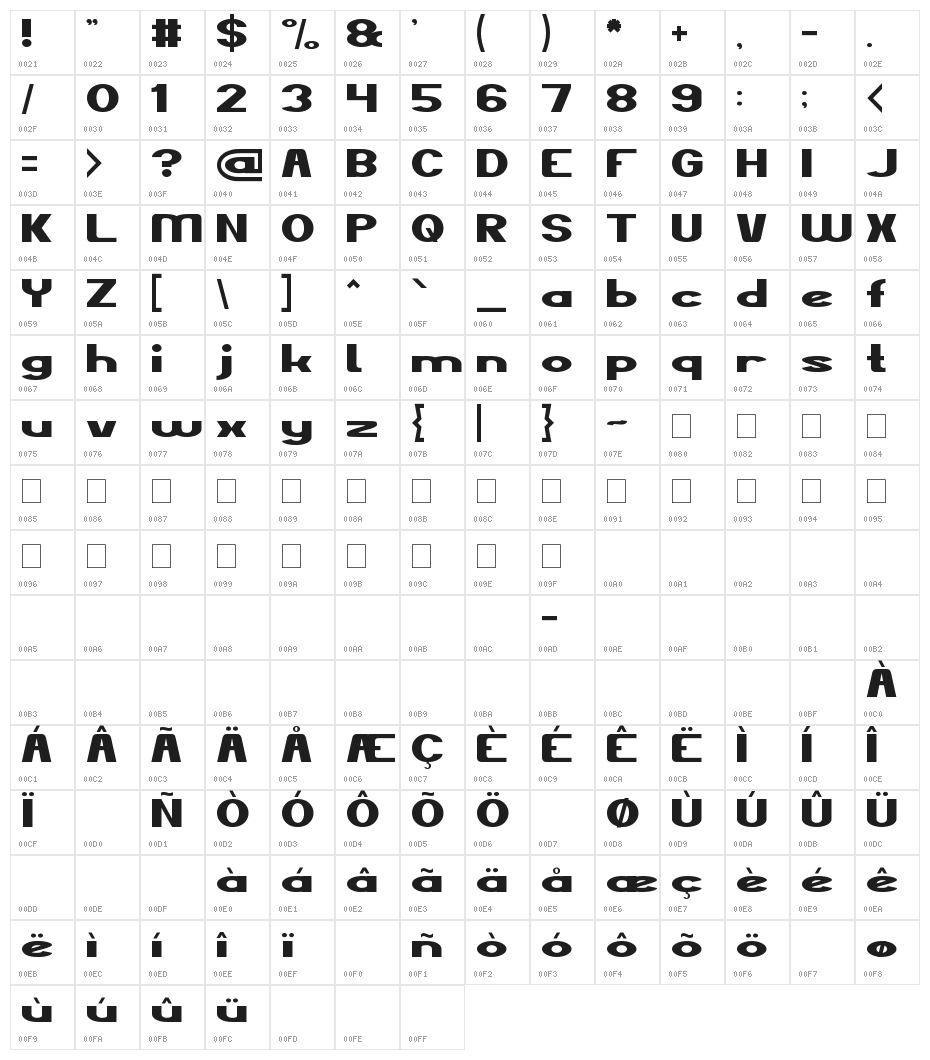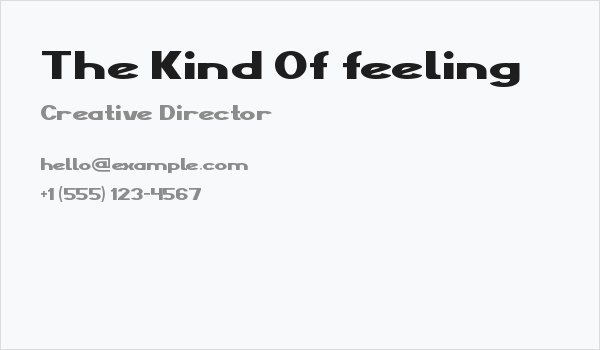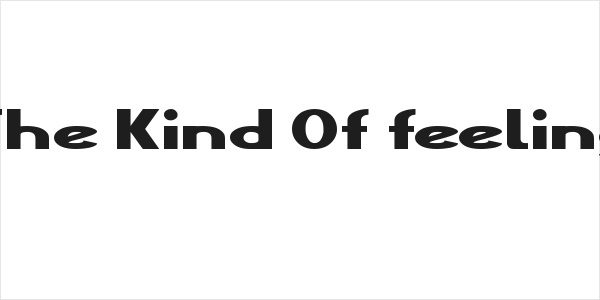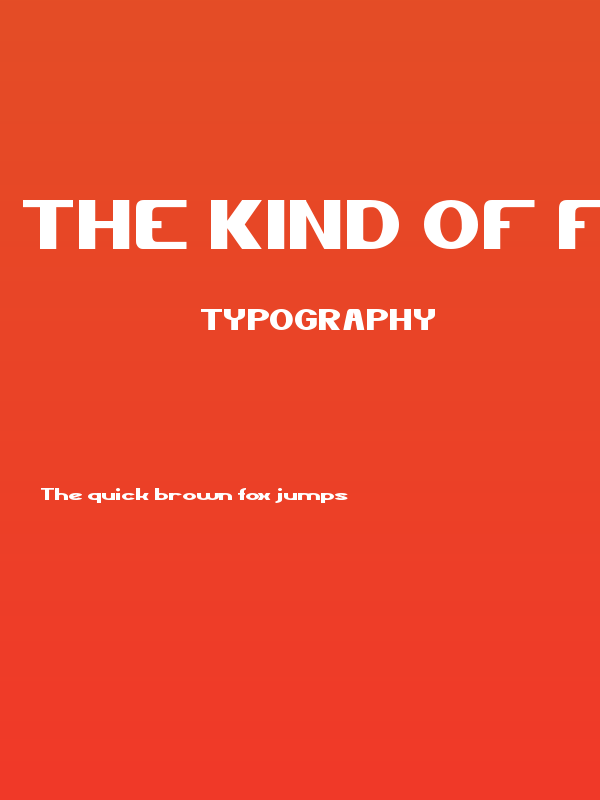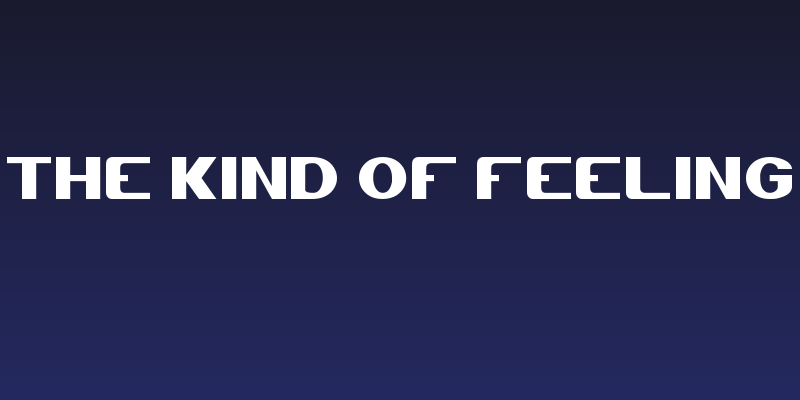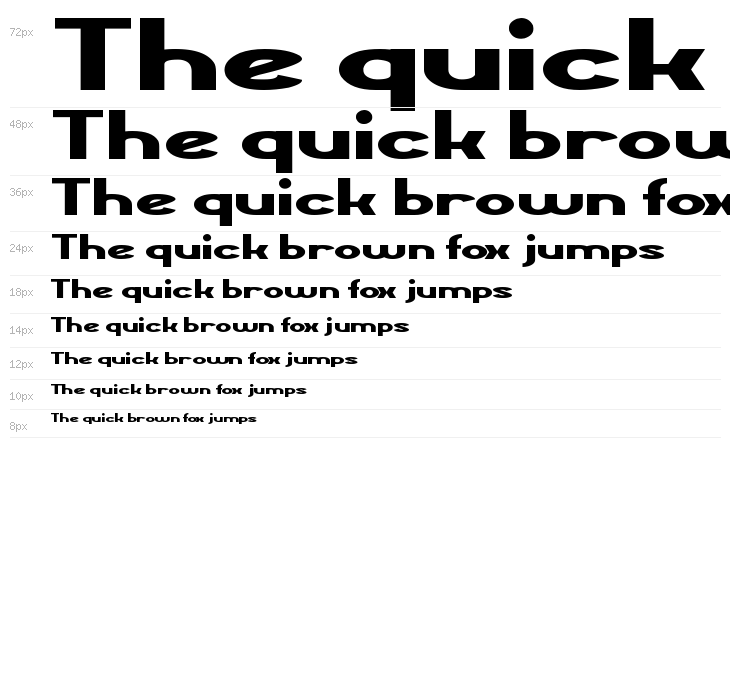
The Kind Of feeling Font
The Kind Of feeling Description
This font features a bold and modern design with a strong presence. The characters are wide and have a slightly condensed appearance, giving them a robust and impactful look. The uppercase letters are uniform in height, while the lowercase letters maintain a consistent baseline with slight variations in height for added visual interest. The numerals are clear and easy to read, matching the boldness of the alphabetic characters. Special characters are designed with the same boldness, ensuring consistency across all glyphs. The overall style is clean and contemporary, making it suitable for various design applications.